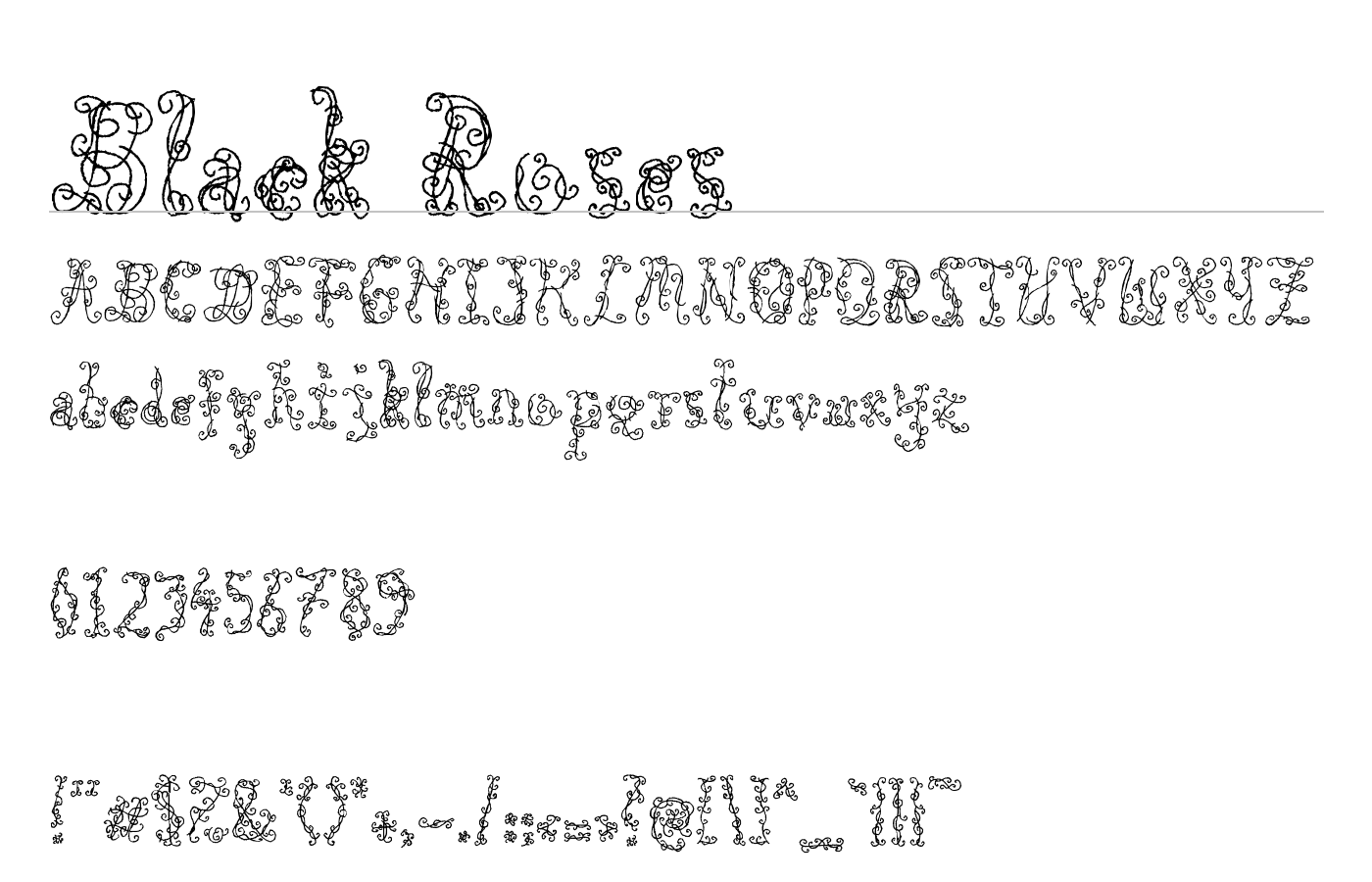
Black Roses is an artistic, decorative font characterized by intricate, curly swirls that form each letter, giving it a whimsical and vintage feel. With its thin, delicate strokes and ornamental design, it works beautifully for creative projects, logos, and invitations that want to evoke elegance and romance with a unique, handmade touch. This font captures attention with its elaborate details, making it best suited for headlines and display use rather than body text.
Black Roses Font
About Black Roses Font